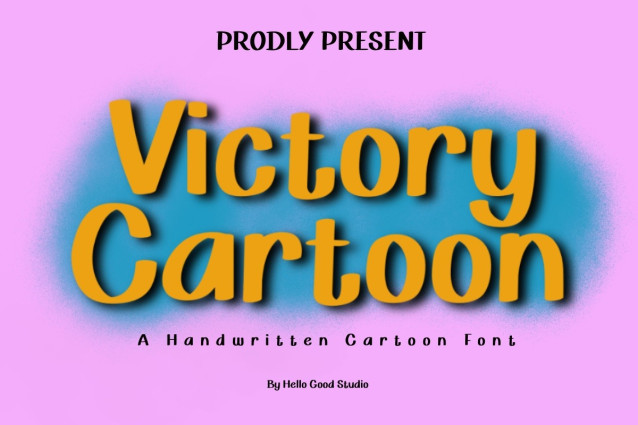
Victory Cartoon Font is a chunky, comic, and cartoon display font. With its neat and joyful personality, this font will enhance any project you wish to create!
Victory Cartoon Font